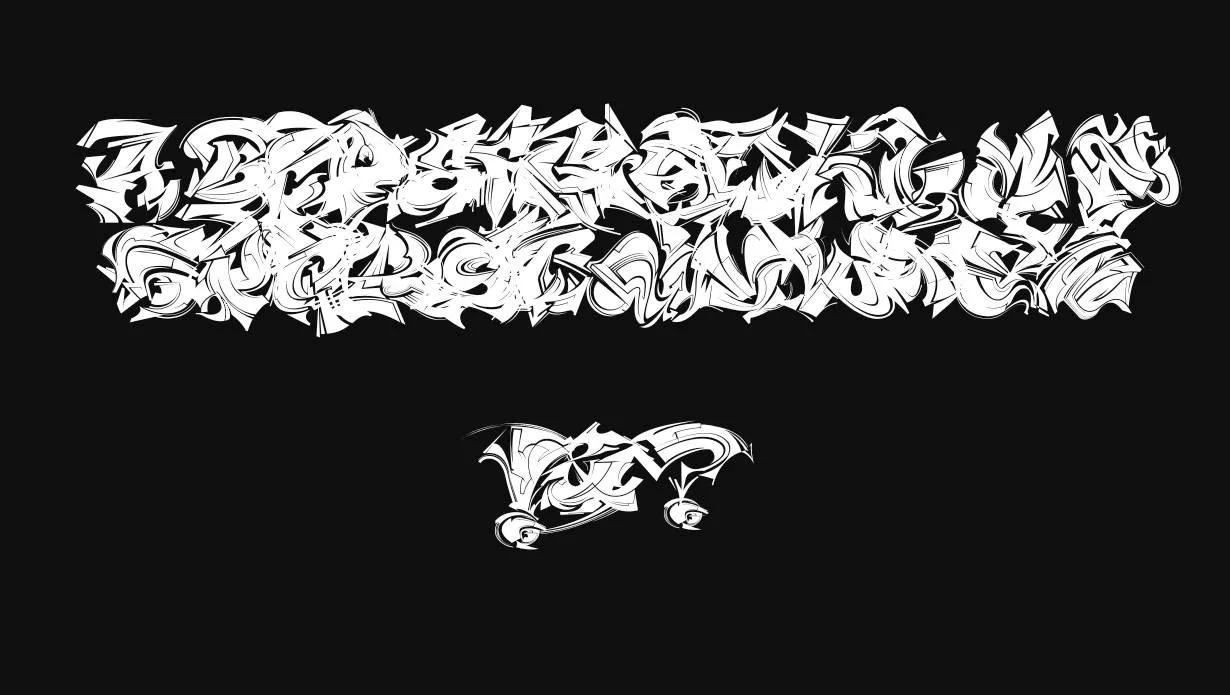
Maelstrom Font commands attention with its bold and impactful design, making it suitable for projects that demand a strong visual presence. Its dynamic characters and robust style convey a sense of power and authority.
| Name | Maelstrom Font |
| Designer | Kris Sowersby |